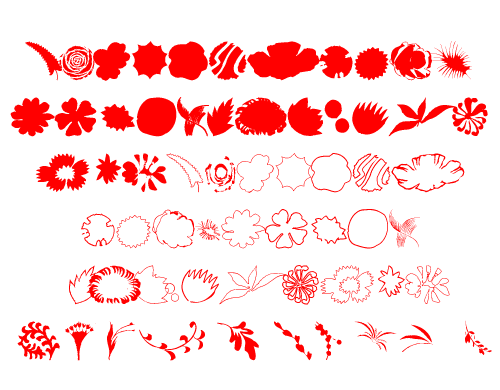
|   |                             |   |      TRIBE 03: M SQUARE: Anything                          |   |             |                               |            previous             | next                                       Rose, Karen Rose.                          A rose is a rose, is a letter  in this case. This font is created             from historical handpainted textile designs. Flowers and leaves are             not meant to communicate anything other than their own beauty. Here             they deserve a decorative function, and can lend an organic look to             a page design. Thin line between abstraction and depiction is fascinating.             When does a form refer to an object or idea? Having loved abstract             pattern painting, I always stayed away from pictorial representaion.             These flower shapes are an interesting departure from my rule.                          Catalog page  |                      |